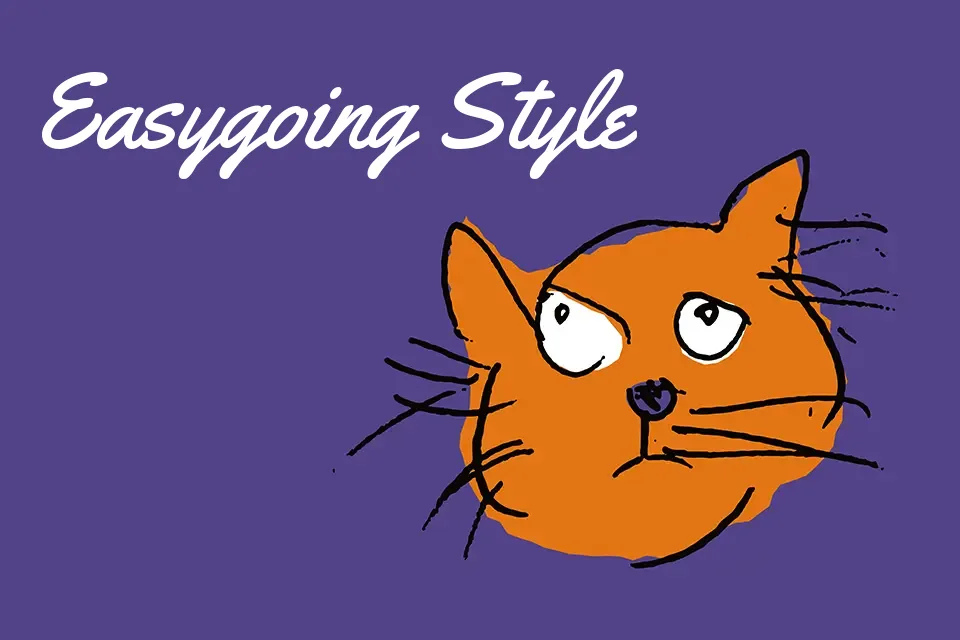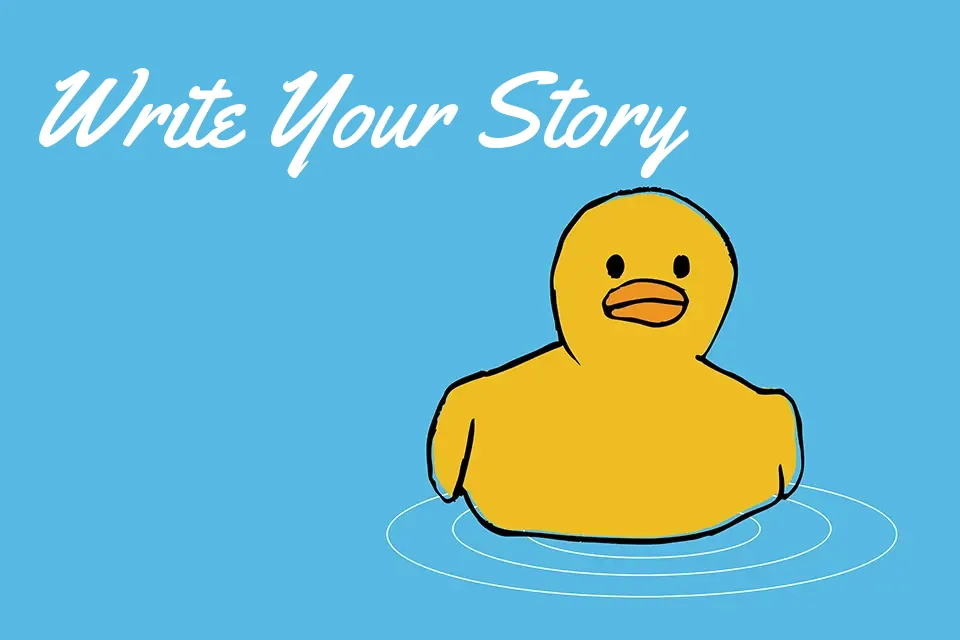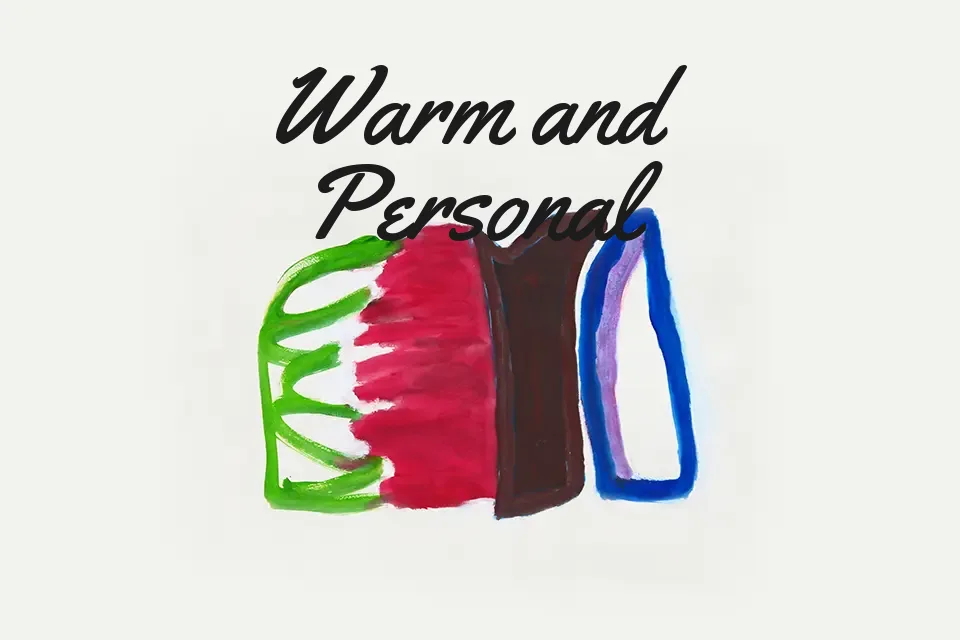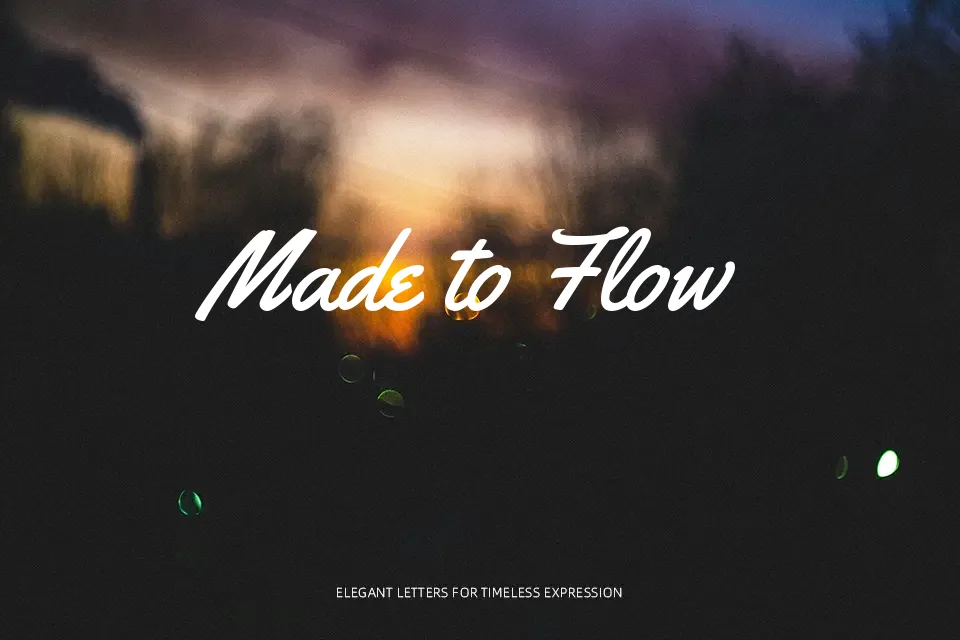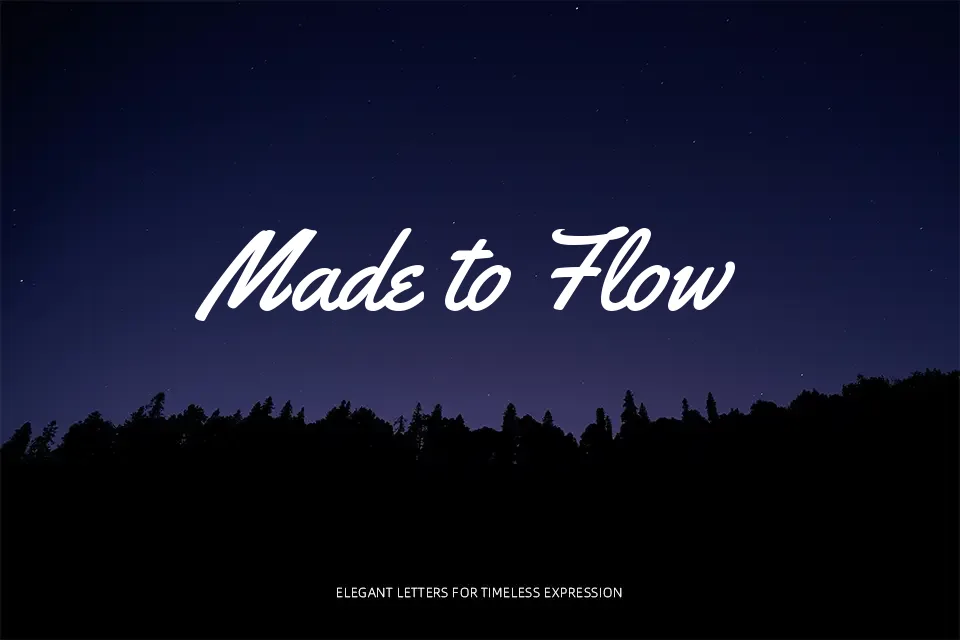
Yellowtail Font
Designed by Astigmatic
Yellowtail is a casual brush script that sits between handwriting and traditional sign painting: medium-weight strokes, loose curves, and a mix of connected and disconnected letters that keep words readable even at smaller headline sizes. The rhythm feels informal and slightly bouncy rather than polished, so it brings personality without looking like a formal calligraphy script. It shines on short phrases—menu headers, logotypes, badges, and banners—where you want a vintage, friendly voice, especially in food, lifestyle, and music-related work. Long paragraphs, strict corporate identities, or tiny UI labels tend to look messy, so it’s better kept for display use and paired with a clean sans or serif for supporting text.
Retro-flavored restaurant or café logos and menus
Short headlines and badges in posters or flyers
Lifestyle or music branding with a hand-lettered vibe
Body text or long reading passages
Formal corporate or government branding
Very small UI labels or dense data layouts
Perfect for branding, headline, and logo, with a artistic and brush style.